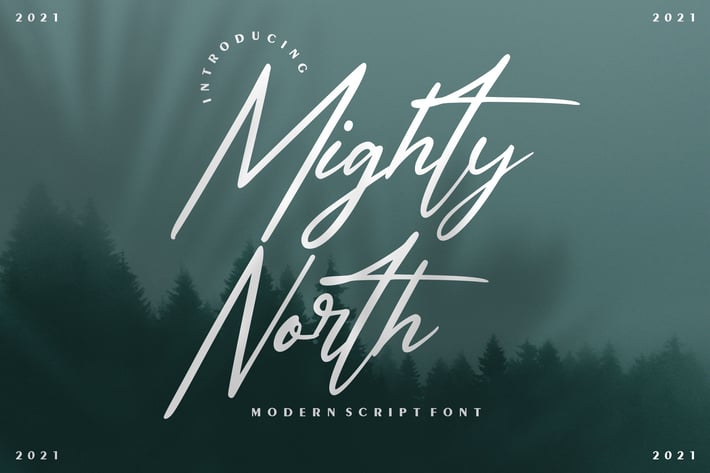
Might North | Modern Script Font with a calligraphy style, So beautiful on invitation like greeting cards, branding materials, business cards, quotes, posters, and more!